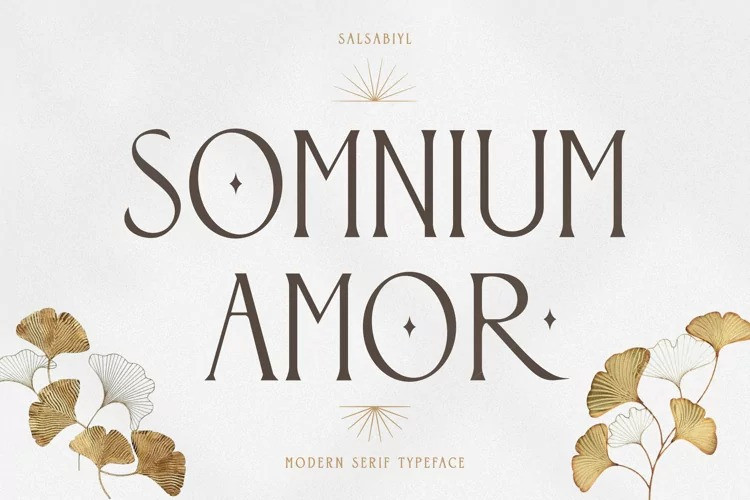
Somnium Amor Serif Font
A serif font with a modern style that makes this font stylish and eye-catching. This serif font is perfect for your next branding project. This serif font has plenty Characters and has Multilingual Support.
Somnium Amor is perfect choice for people looking for clean, modern, minimalist, elegant, beauty design styles.
Suitable for almost any graphic designs such as logo, branding materials, business cards, gift cards, t-shirt, cover, thumbnail, print, poster, photography, quotes .etc.